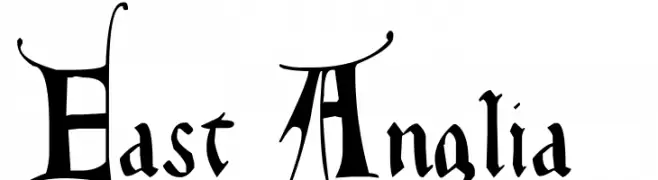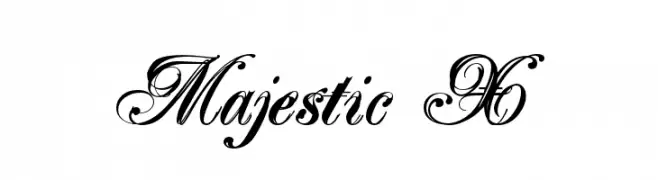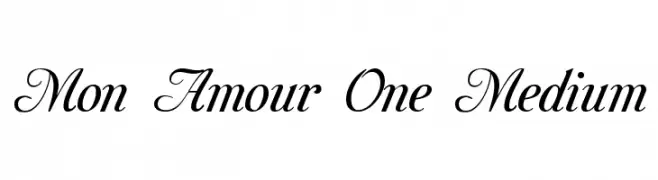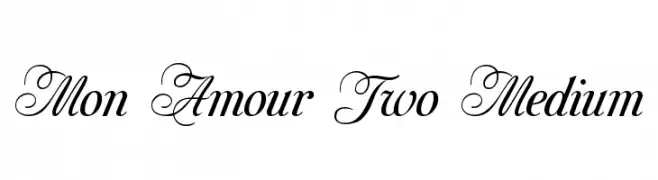
A classic blackletter font with ornate, medieval-inspired design.
An elegant script and serif blend with ornate uppercase and refined lowercase.
An elegant and ornate script font with intricate flourishes.
An elegant script font with thin, flowing strokes and intricate loops.
An elegant, ornate script font with flowing, interconnected letters and intricate flourishes.
An elegant script font with ornate, flowing letterforms and high contrast strokes.
An elegant script font with flowing, cursive style and sophisticated flair.
An ornate, Baroque-inspired decorative font with intricate floral patterns.
An ornate, decorative font with intricate embellishments and a classic serif structure.
An ornate and decorative typeface with intricate detailing and flourishes.